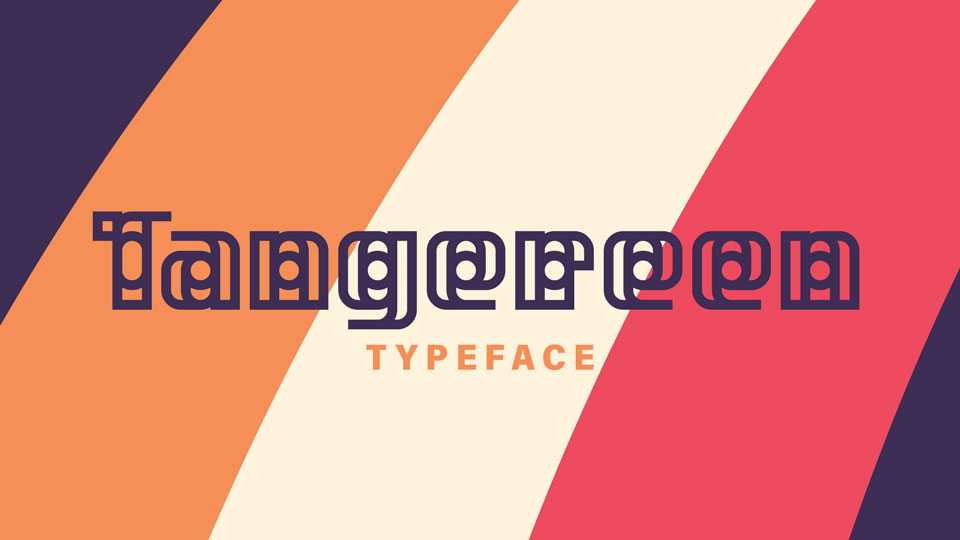
Download Tangereen font, a creative geometric typeface in its third iteration of a design. Tangereen is meant for display and logo uses since it is much fancier than its predecessors.
Designer: Pixel Kitchen